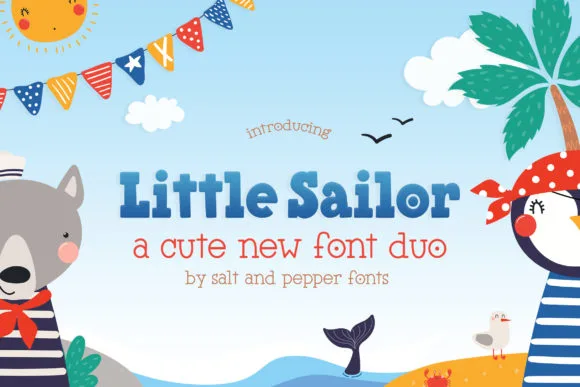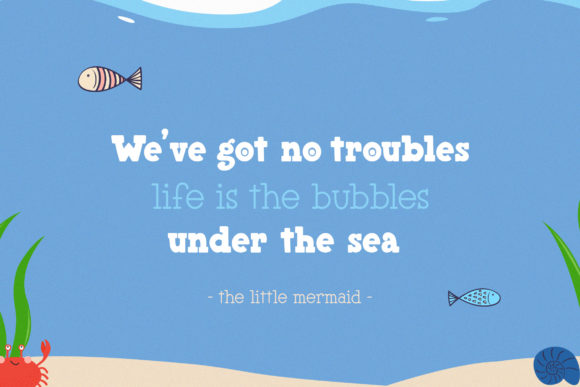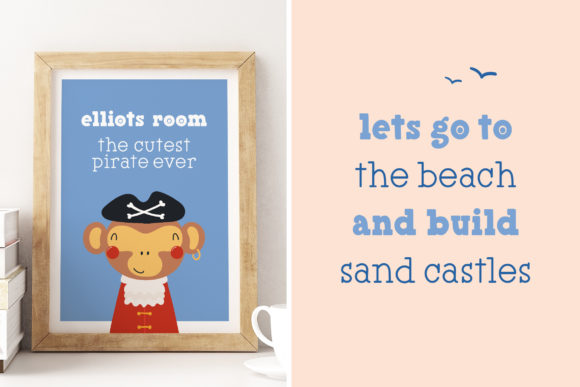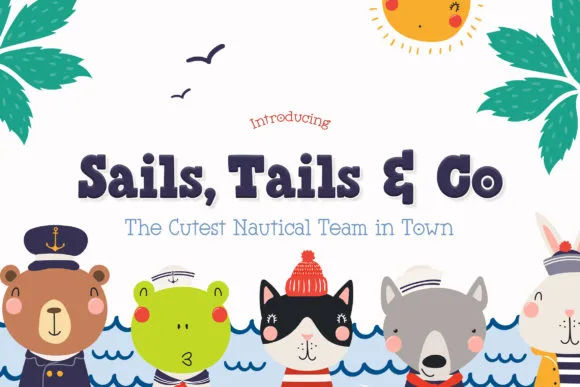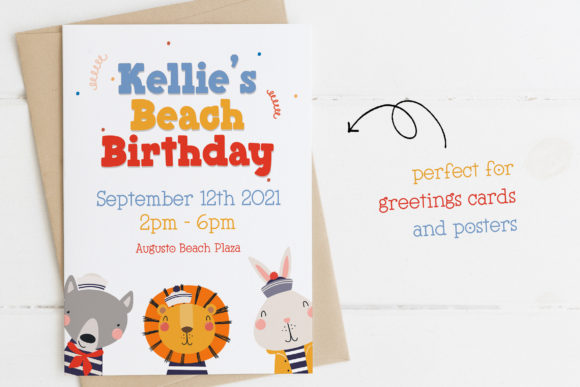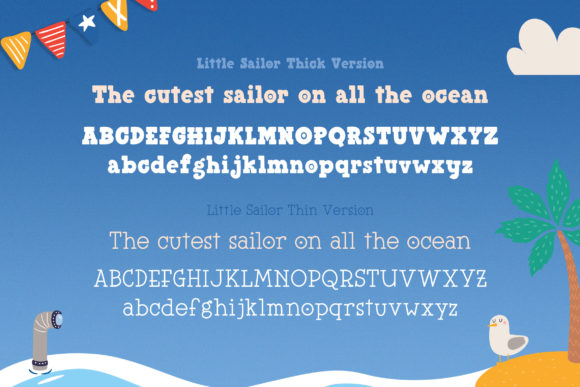
Little Sailor Duo Font
Little Sailor Duo is a fun and cool looking slab serif font. Whether you are using it for cartoon-related designs, children games, quotes, titles, brand names, book covers, posters, or just any creation that requires a touch of joy, this font is a great choice.